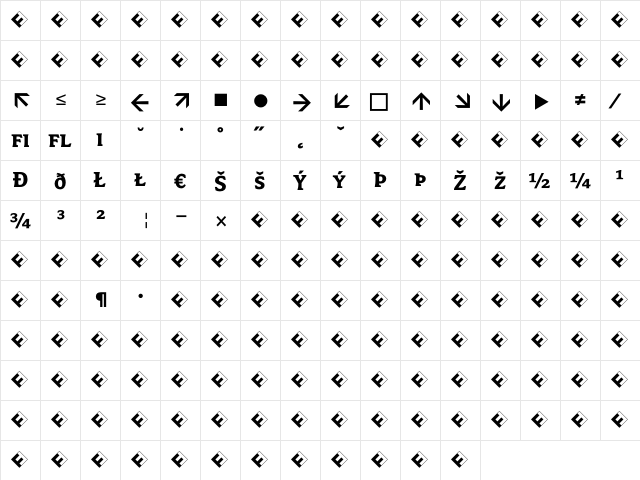
Avance Bold Exp SC
Design Context for Avance Typeface
Avance is a composed and adaptable typeface that performs quietly and consistently across a wide range of design contexts. The heavy weight commands attention and anchors typographic hierarchies.